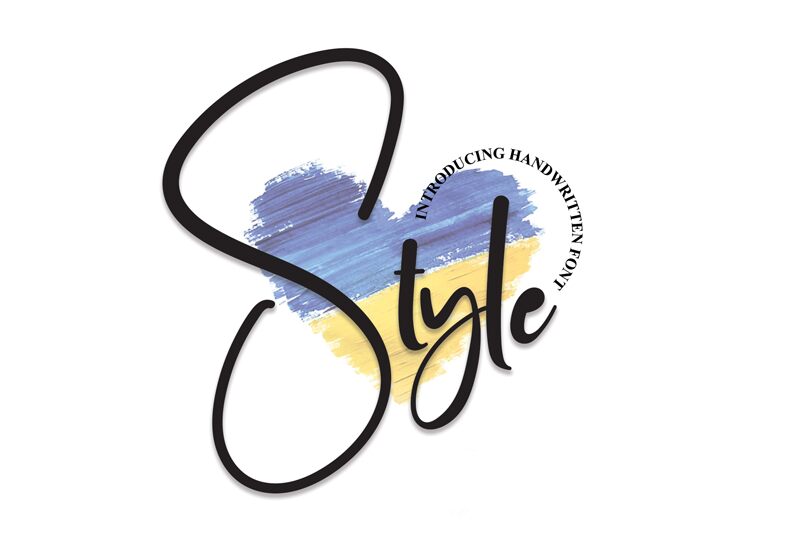
Style
Style, crafted by Graphix Line Studio, brings a personal touch to the digital realm with its handwritten aesthetics. The semi-light weight of this font lends an air of delicacy and finesse, embodying a balance between readability and artistic flair. Its flowing curves and subtle variability in stroke width evoke the charm of traditional penmanship while maintaining modern clarity.
This font's graceful appearance makes it an ideal choice for invitations, branding, and advertising that require a touch of elegance. Style's versatility also extends to editorial design, where it can add personality to pull quotes or headers without overwhelming the page. Embrace Style for projects that demand both sophistication and a hint of intimacy.